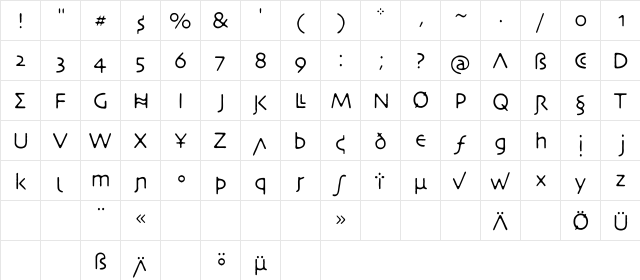
VTNecrotic Tissue
Design Context for VTNecrotic Typeface
VTNecrotic offers clean, dependable letterforms without strong stylistic allegiance, making it a practical choice for designers who need flexibility.